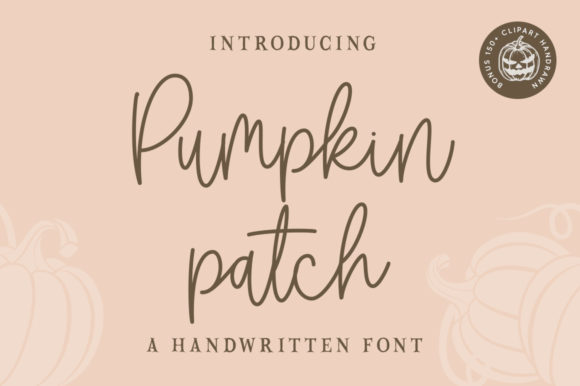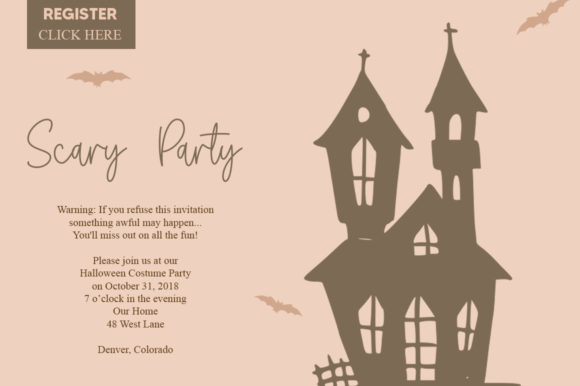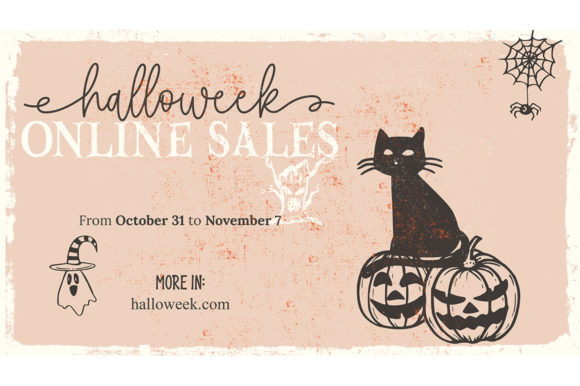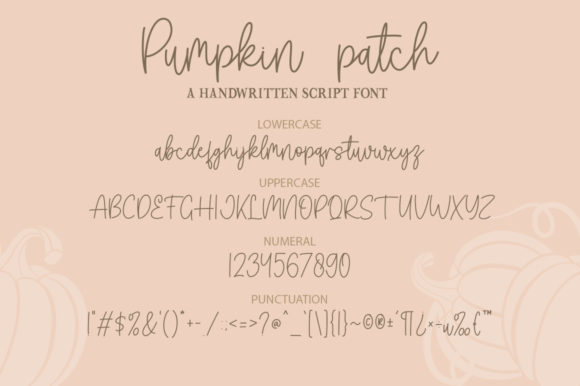
About Pumpkin Patch Font
Pumpkin Patch is a stylish and incredibly elegant script font. It looks lovely on wedding invitations, thank you cards, quotes, greeting cards, logos, business cards and more. This font is PUA encoded which means you can access all of the glyphs and swashes with ease!Â